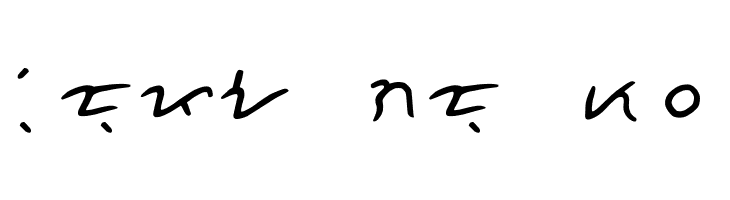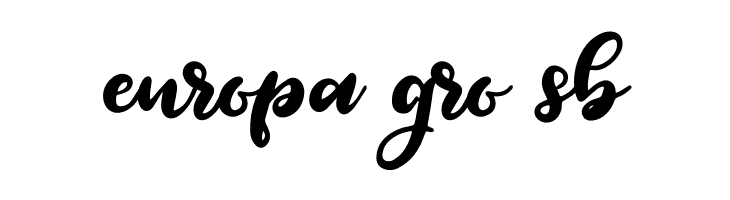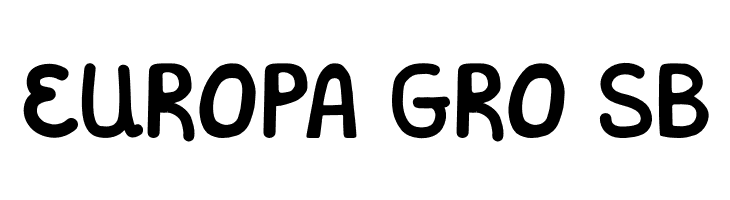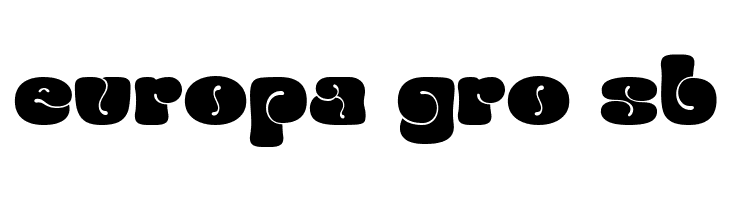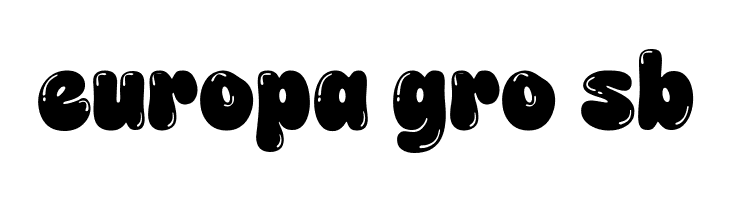
• TAAL
A fluid, script-like font with artistic and elegant strokes.
• Apu
An artistic, calligraphic font with fluid shapes and dynamic strokes.
• Ratouruk
A bold, expressive script font with fluid, interconnected strokes.
• Salonikia VKF
A playful, rounded handwritten font with a friendly and informal style.
• Problems Regular
A modern, striped font with a futuristic digital aesthetic.
• SketchbookDiapositif
A playful, hand-drawn font with characters enclosed in square frames.
• SketchbookPaper
A playful, hand-drawn font with boxed characters and decorative elements.
• Chalkcoal
A playful, bold font with a hand-drawn chalkboard style.
• Bubble Brown Regular
A playful, bold font with a bubbly, retro style.
• Choret Fudyng Bubble Regular
A playful, bold, and bubbly typeface with a rounded, glossy appearance.